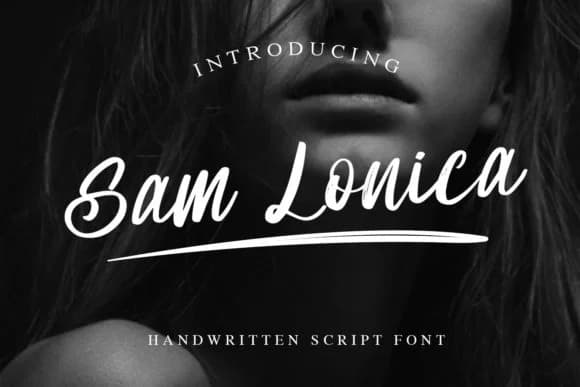
Sam Lonica by dwikrisdiantoro9 is a dynamic script typeface that brings editorial sophistication with genuine visual punch. The letterforms have that confident, hand-drawn feel that reads as intentional rather than merely decorative.
This font excels in spaces that need attitude without sacrificing legibility. Think magazine mastheads where you want readers to notice immediately, social media campaigns for fashion and lifestyle brands that benefit from a bold personality, or poster work where the typography itself becomes the statement. Wedding invitations with a modern edge (not the traditional route) also shine with Sam Lonica, especially when you're targeting couples who want their stationery to feel editorial rather than ornamental.
The script structure maintains readability across sizes while the character design adds genuine flair. Use it for branding collateral when you want to signal contemporary taste, or layer it over photography in editorial layouts where type needs to compete for attention. Music and entertainment marketing benefits from its energy too, since the weight and gesture feel right for album artwork or concert promotion.
Sam Lonica Font is a script font that shines as a display or heading face. Pair it with a clean sans-serif or serif font for body text β the contrast creates a clear hierarchy while the two styles stay balanced and easy to read.